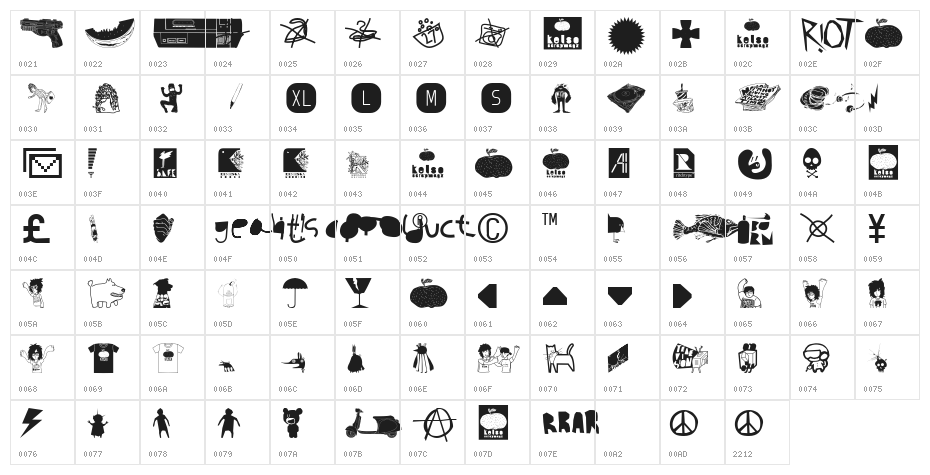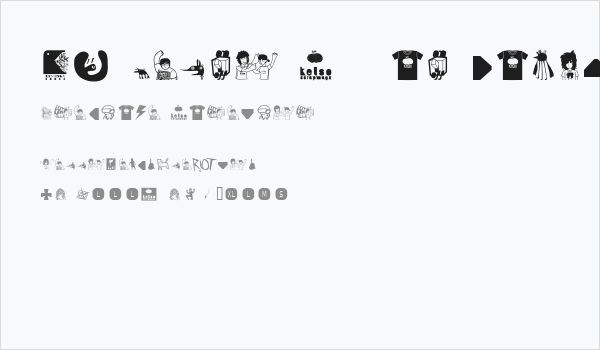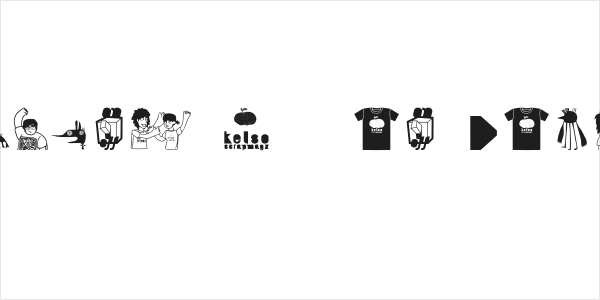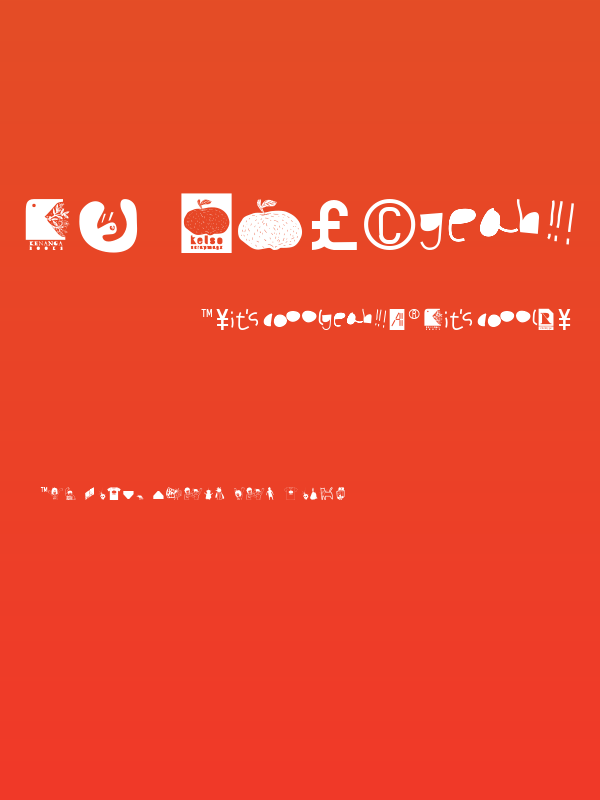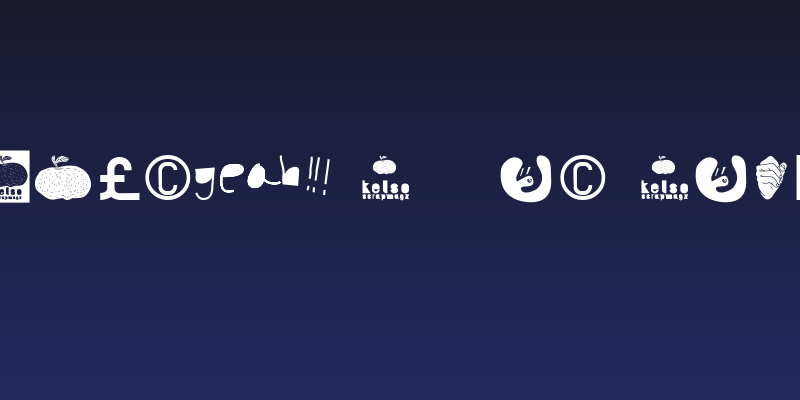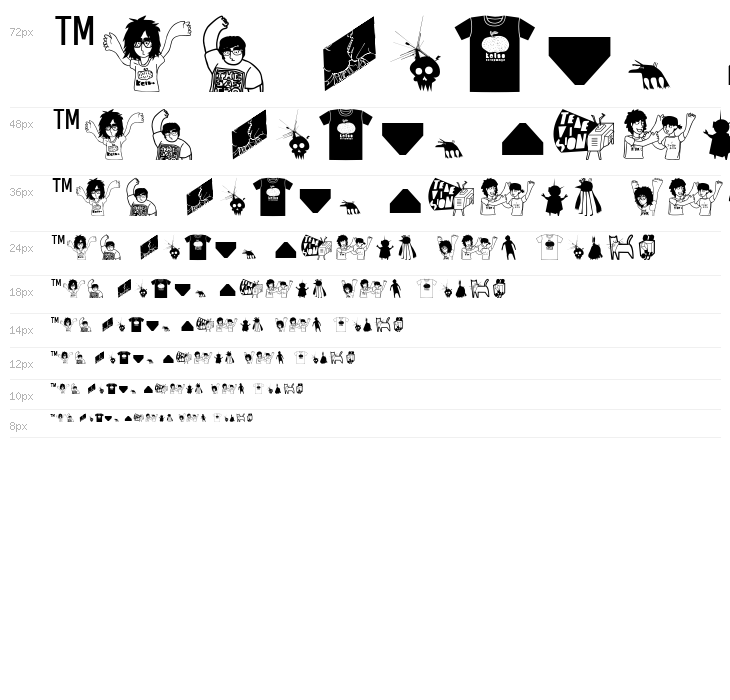
AI kelso D is dingbat Font
AI kelso D is dingbat Description
This collection features a diverse array of playful and quirky dingbats, showcasing a mix of abstract shapes, whimsical characters, and unique symbols. The designs range from cartoonish figures and animals to stylized objects and icons, each with a distinct personality. The imagery is bold and graphic, often incorporating thick lines and solid fills. The overall aesthetic is fun and creative, with a touch of irreverence and humor. These dingbats are perfect for adding a unique and artistic flair to any project, offering a wide variety of visual elements to choose from.
| Overall Style | Playful, Artistic, Whimsical |
| Use Case | Decorative elements, Artistic projects, Creative designs |
| Proposed Projects | Ideal for creative projects such as posters, album covers, zines, and any design work that benefits from a playful and artistic touch. |